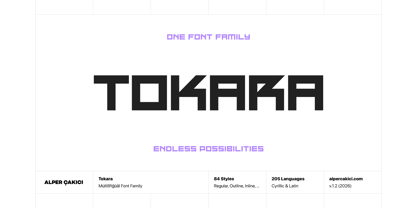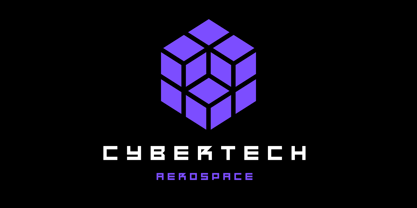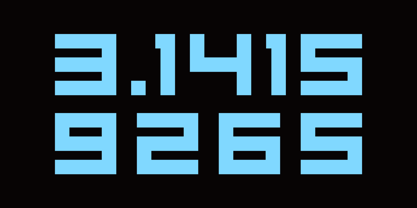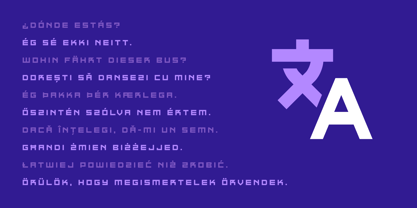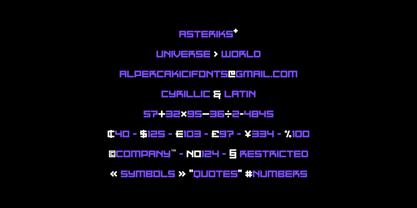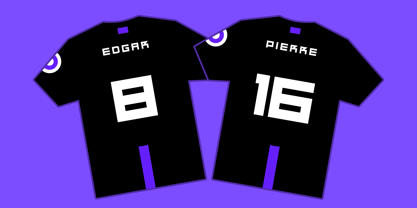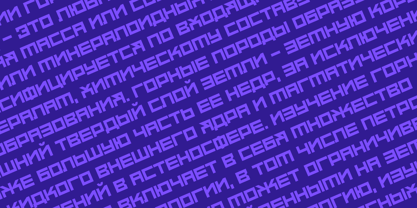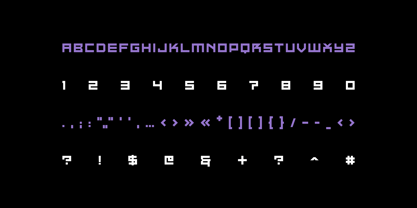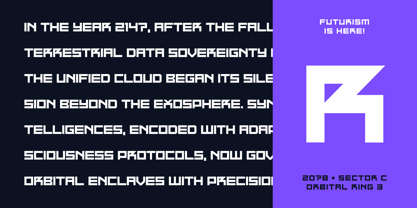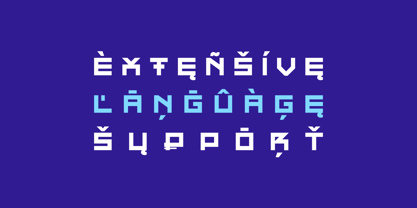
Tokara
by AlperCakici
The Tokara Font Family was designed by Alper Çakıcı and published by AlperCakici. Tokara contains 1 styles. More about this family
Tokara is a modern, versatile font with excellent kerning, making it ideal for both digital and print use. It features full support for the Cyrillic language, allowing for seamless multilingual communication. Tokara's unique design combines classic proportions with a contemporary feel, making it stand out from other same categories fonts.
It supports 91 Languages: Belarusian, Russian, Afrikaans, Albanian, Asu, Basque, Bemba, Bena, Breton, Catalan, Chiga, Colognian, Cornish, Croatian, Czech, Danish, Dutch, Embu, English, Esperanto, Estonian, Faroese, Filipino, Finnish, French, Friulian, Galician, German, Gusii, Hungarian, Indonesian, Irish, Italian, Kabuverdianu, Kalenjin, Kamba, Kikuyu, Kinyarwanda, Latvian, Lithuanian, Lower Sorbian, Luo, Luxembourgish, Luyia, Machame, Makhuwa-Meetto, Makonde, Malagasy, Maltese, Manx, Meru, Morisyen, North Ndebele, Norwegian Bokmål, Norwegian Nynorsk, Nyankole, Oromo, Polish, Portuguese, Quechua, Romanian, Romansh, Rombo, Rundi, Rwa, Samburu, Sango, Sangu, Scottish Gaelic, Sena, Serbian, Shambala, Shona, Slovak, Soga, Somali, Spanish, Swahili, Swedish, Swiss German, Taita, Teso, Turkish, Upper Sorbian, Uzbek (Latin), Volapük, Vunjo, Walser, Welsh, Western Frisian, Zulu
Designers: Alper Çakıcı
Foundry: AlperCakici